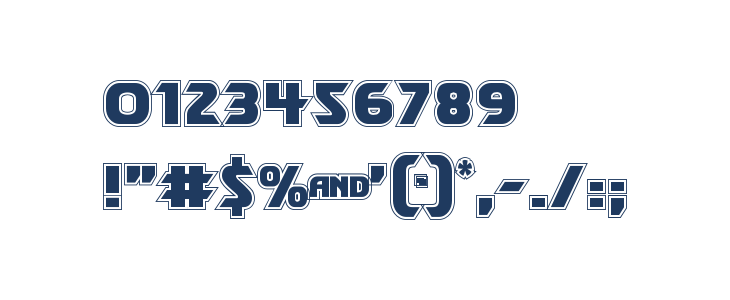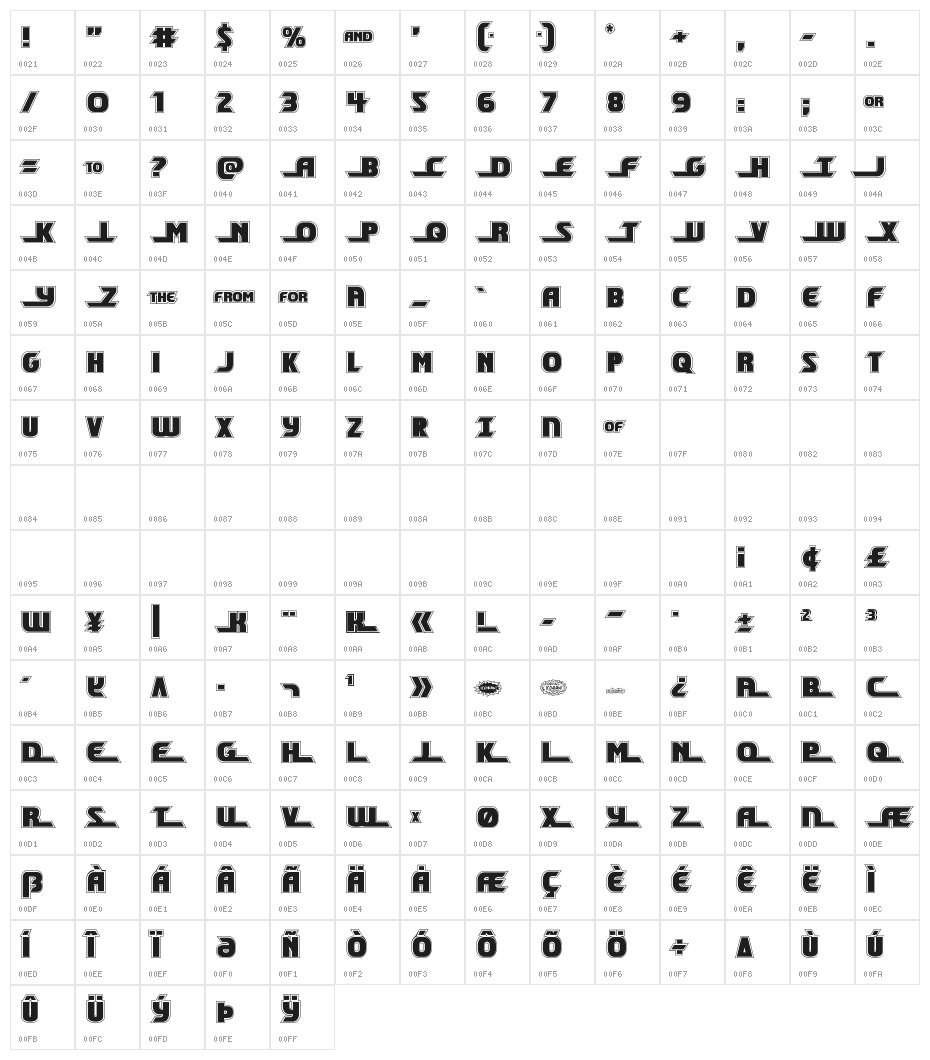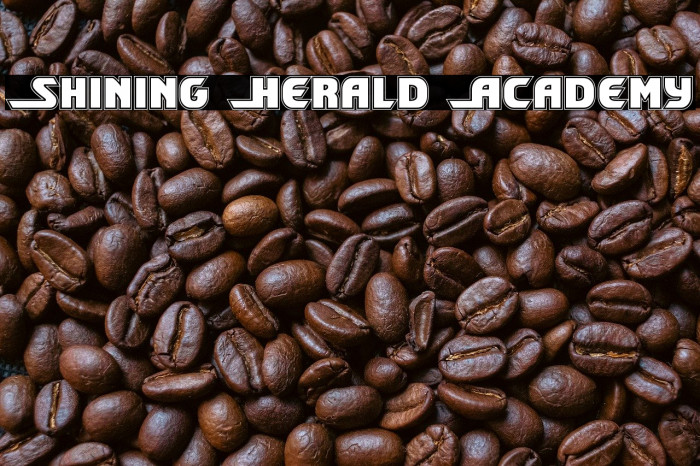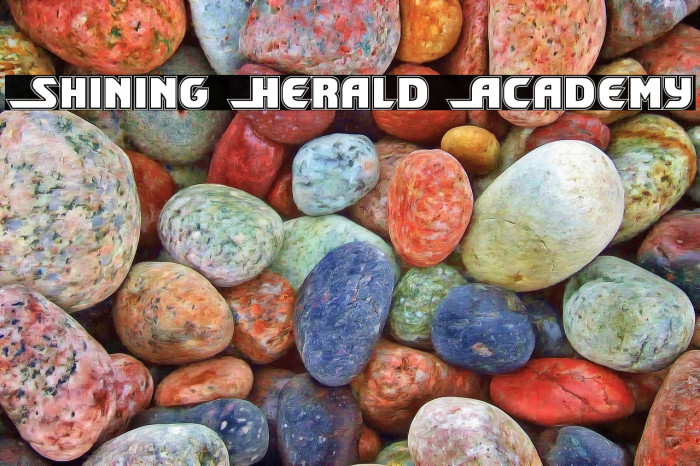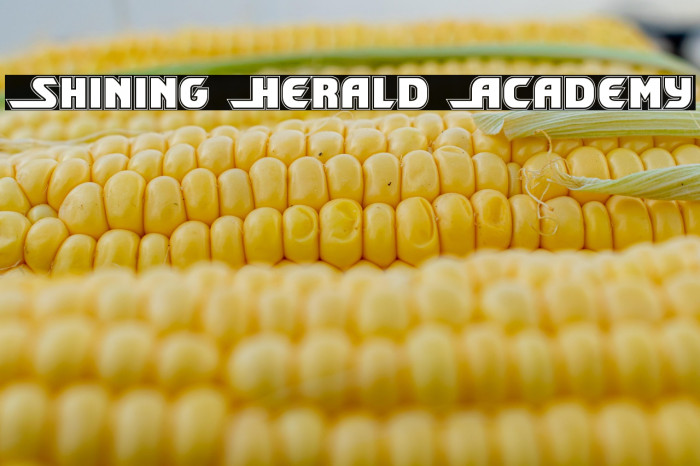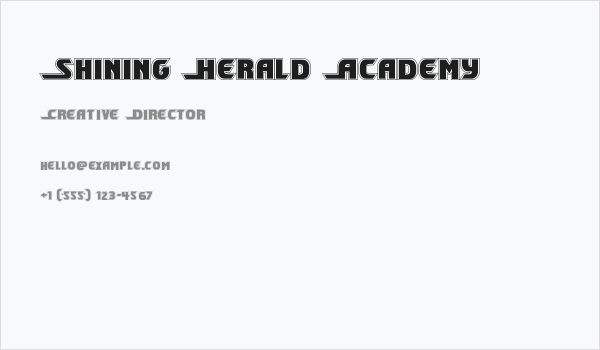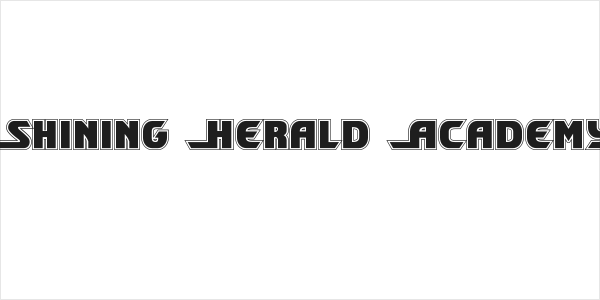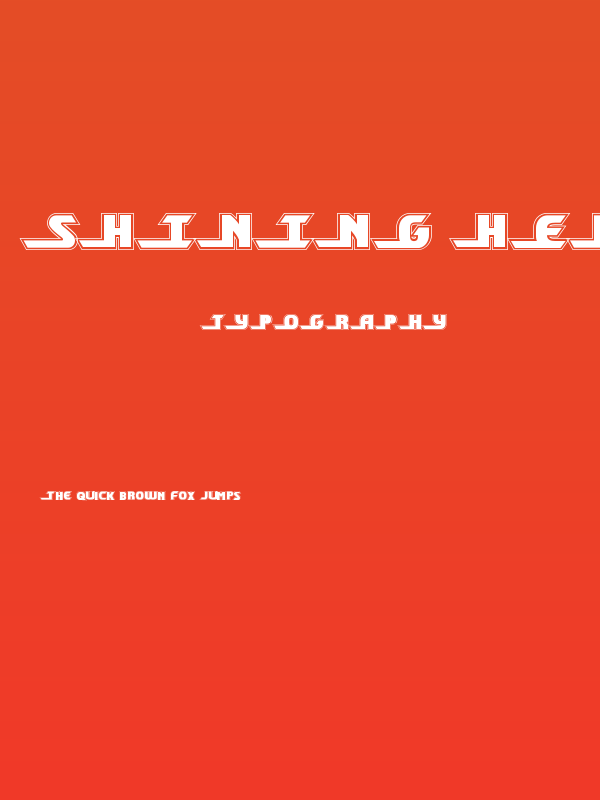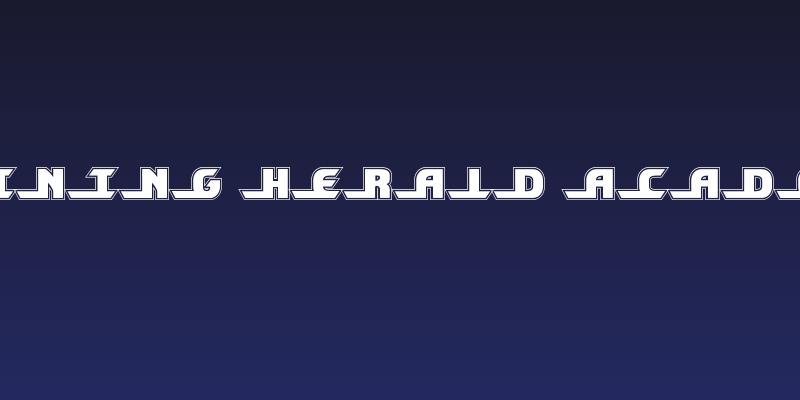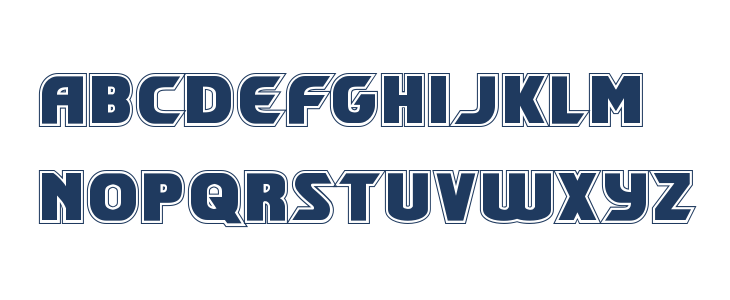
Shining Herald Academy Font
Shining Herald Academy Description
This font features a bold and striking design with a strong geometric structure. The uppercase letters are characterized by thick, angular lines and a three-dimensional effect that gives them a dynamic and impactful appearance. The lowercase letters maintain the same boldness, ensuring consistency throughout the typeface. Numbers and special characters are designed with the same attention to detail, making them stand out with their bold outlines and unique shapes. This font's style is reminiscent of retro-futuristic aesthetics, combining elements of both vintage and modern design.
| Overall Style | Retro-Futuristic |
| Proposed Projects | Ideal for projects that require a strong visual impact, such as posters, logos, video game titles, and branding materials. |